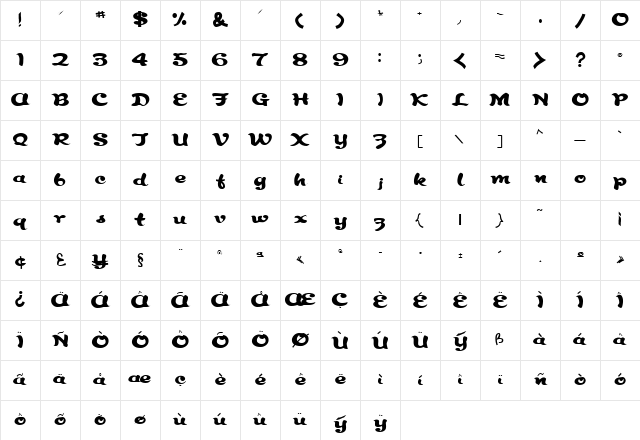
Rinde Birthday Regular
Design Context for Rinde Birthday
Rinde Birthday is a composed and adaptable typeface that performs quietly and consistently across a wide range of design contexts.
Pro Tip: Use Rinde Birthday in both headline and body roles to test its range before committing to a single application.